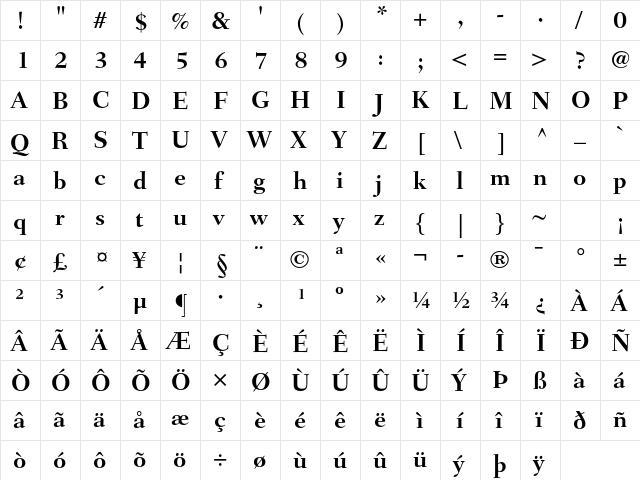
Fairfield LT Std 75 Bold
| Designer | Rudolph Ruzicka, Alex Kaczun |
Design Context for Fairfield LT Std Typeface
Fairfield LT Std is a composed and adaptable typeface that performs quietly and consistently across a wide range of design contexts. The heavy weight commands attention and anchors typographic hierarchies.